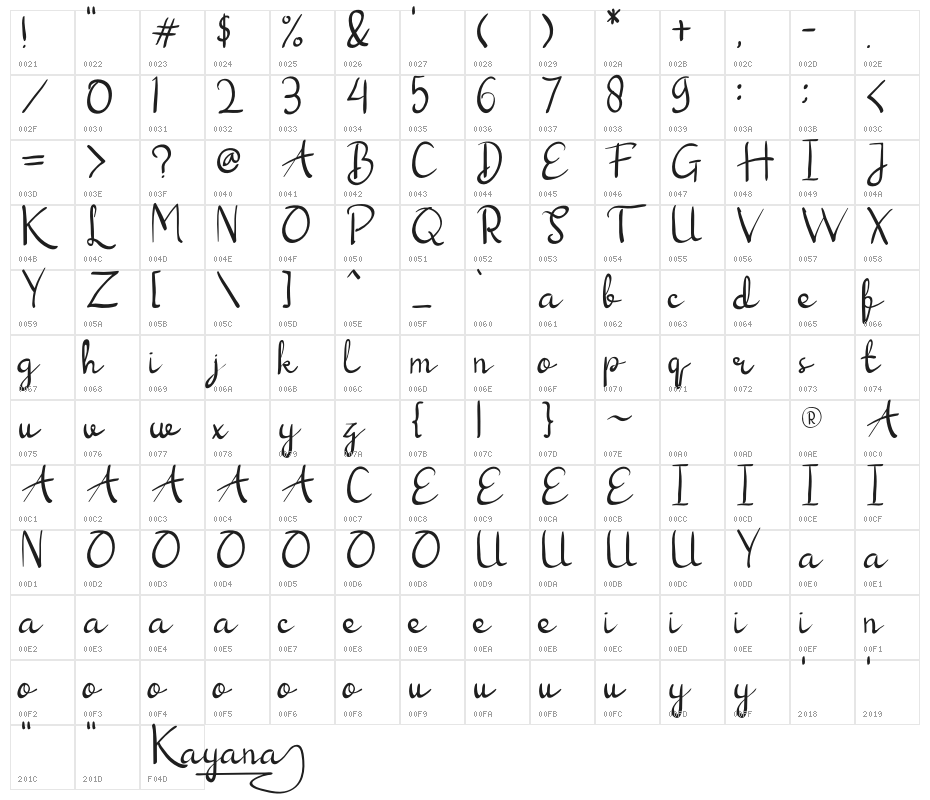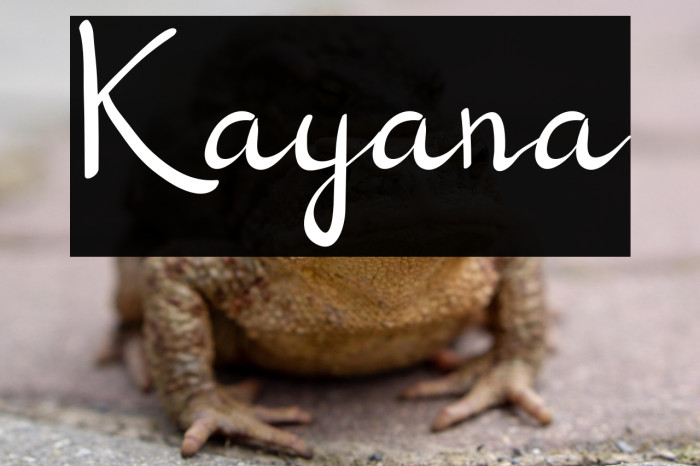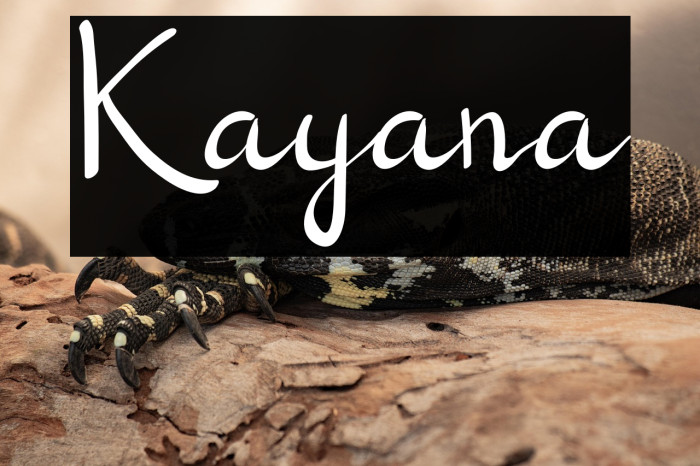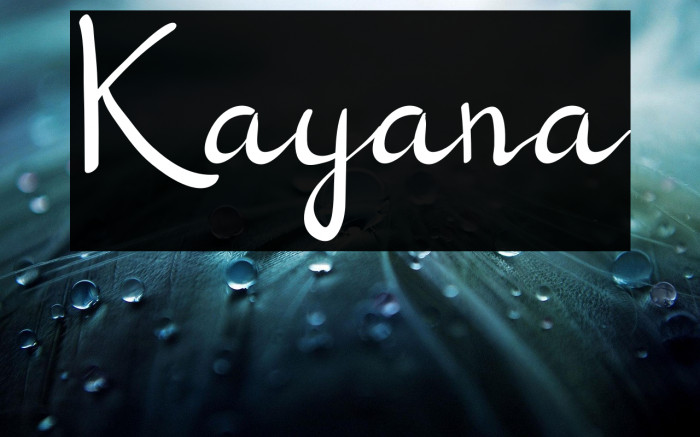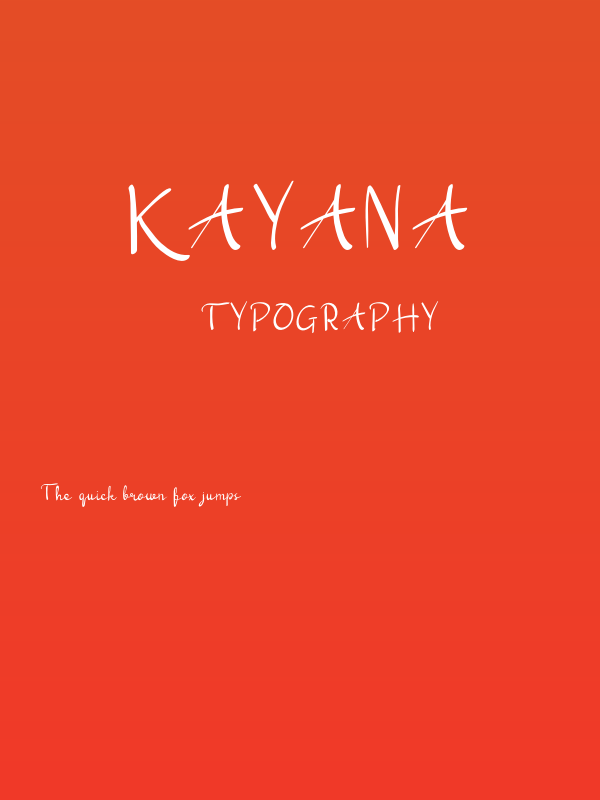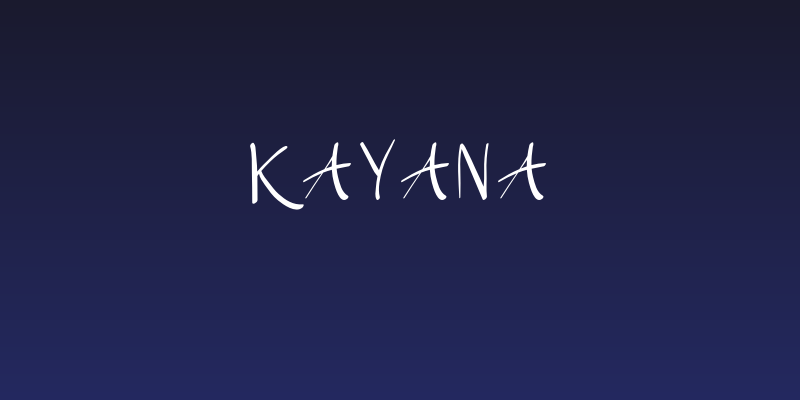
Kayana Font
Kayana Description
This font features a playful and dynamic script style, characterized by its fluid and connected letterforms. The uppercase letters exhibit a mix of sharp angles and smooth curves, creating a lively and energetic appearance. The lowercase letters maintain a consistent flow, with some letters extending below the baseline, adding to its whimsical nature. The numerals are bold and slightly rounded, complementing the overall style. The special characters are well-integrated, maintaining the font's cohesive look. This font is ideal for projects that require a personal touch, such as invitations, greeting cards, or branding materials.
| Proposed Projects | Ideal for invitations, greeting cards, branding materials, and creative projects. |